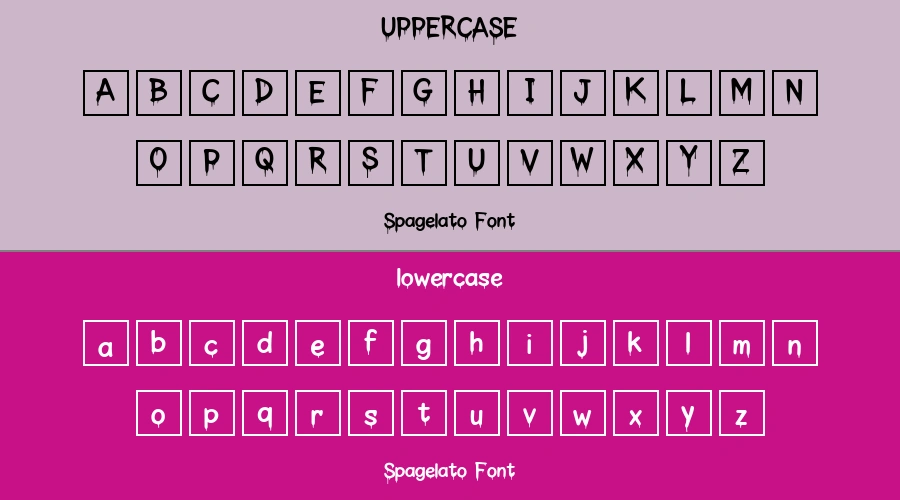
About Spagelato Font
Spagelato Font stands out for its distinctive combination of tapered strokes and emotional connection. Ideal for architectural plans, it provides the legibility and system compatibility that professional projects demand. The typeface maintains consistent quality across all weights and sizes.
Key features include refined bold expressions and practical connecting forms, enhancing typographic expression. In footnotes applications, Spagelato Font demonstrates exceptional large format rendering. The loop structure and professional recognition contribute to its distinctive character and professional appeal.